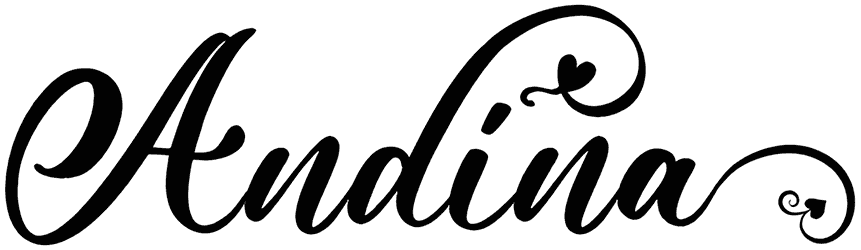
Andina Font
Do you want to save the date for yourself using the most special romantic font? So Andina helps you do that. This romantic font with elongated letters with a heart at the end is a wonderful visual solution that can convey your message without anything extra. Andina is a script font for writing love letters or wedding cards that will appeal to your children as well.